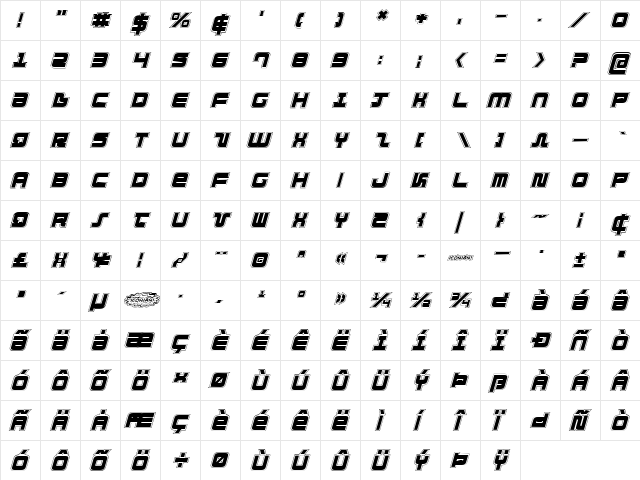
Direktor Academy Italic Italic
Design Context for Direktor Academy Italic Typeface
Direktor Academy Italic is a composed and adaptable typeface that performs quietly and consistently across a wide range of design contexts. The dynamic lean of this cut emphasises speed and emphasis in any layout.
Pro Tip: Try Direktor Academy Italic for annotation and caption copy alongside an upright companion — the contrast in angle creates a dynamic but ordered typographic system.